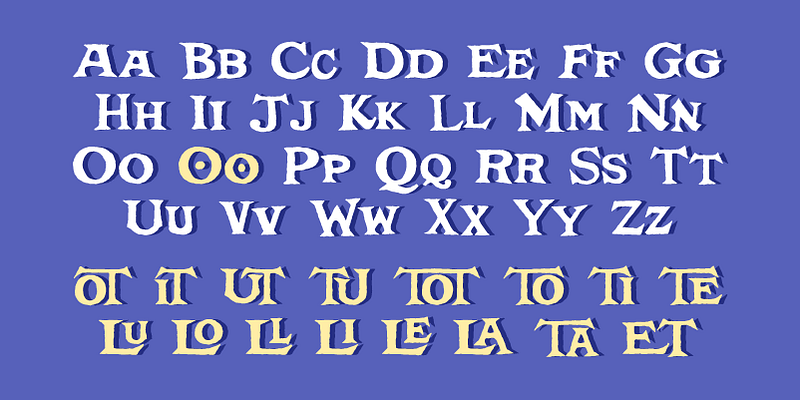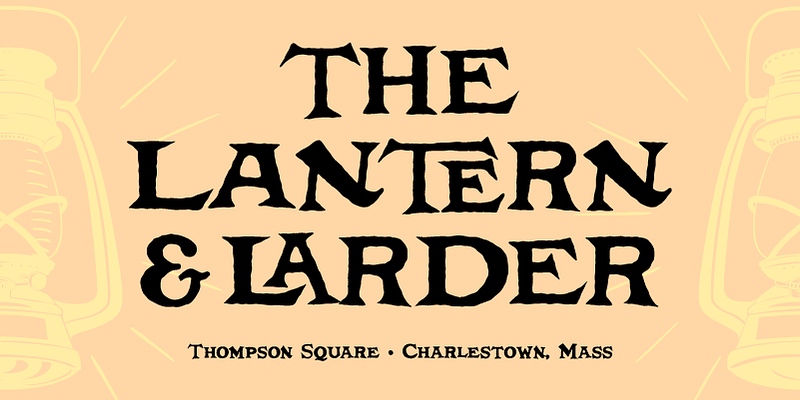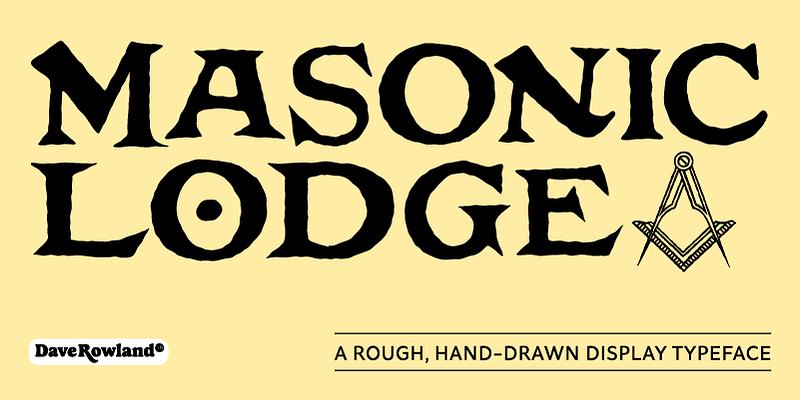
Masonic Lodge is a rough, hand-drawn display typeface that appears to be chiseled from stone. Rowland started with a very low scan and traced it until he had almost a whole alphabet. He saw potential, so he created the rest of the letters into a font. There is variety for more authenticity with two versions of each letter and number. Masonic Lodge would be excellent for pub signs and menus, secret society meetings and rosters, food labels and packaging, and monster movie titles and posters!